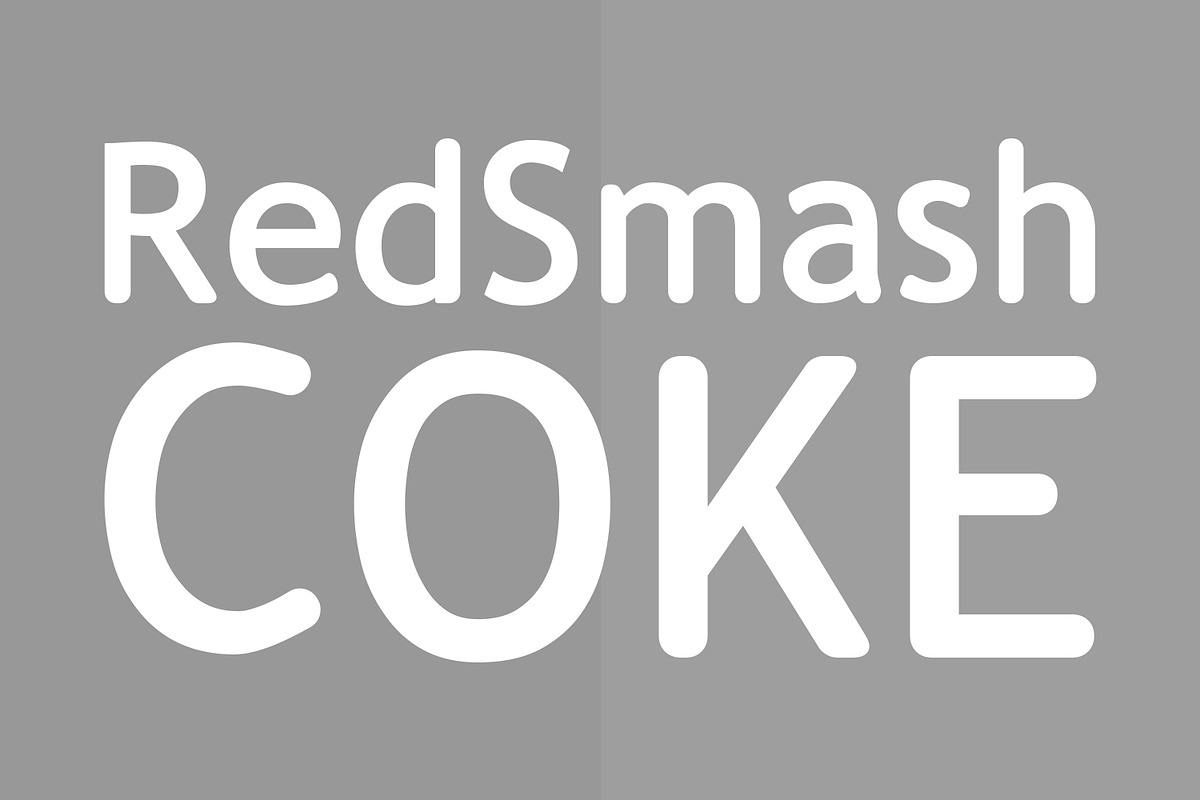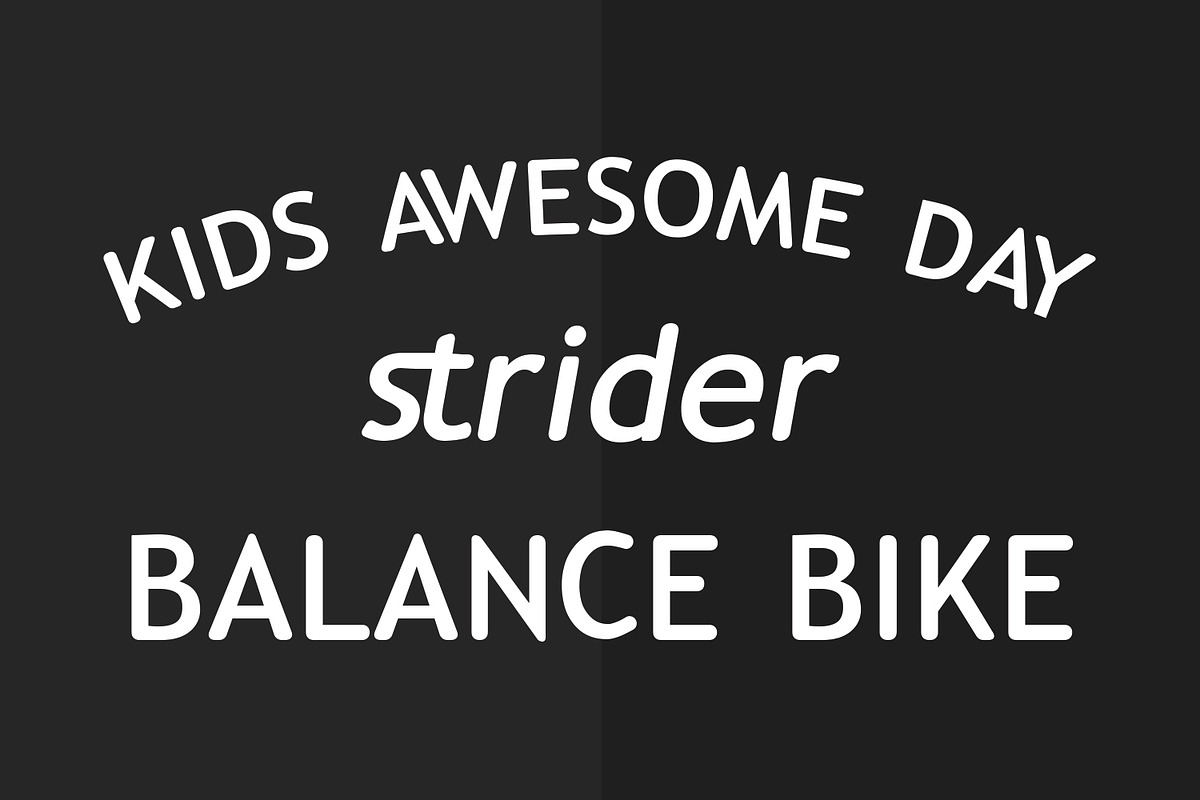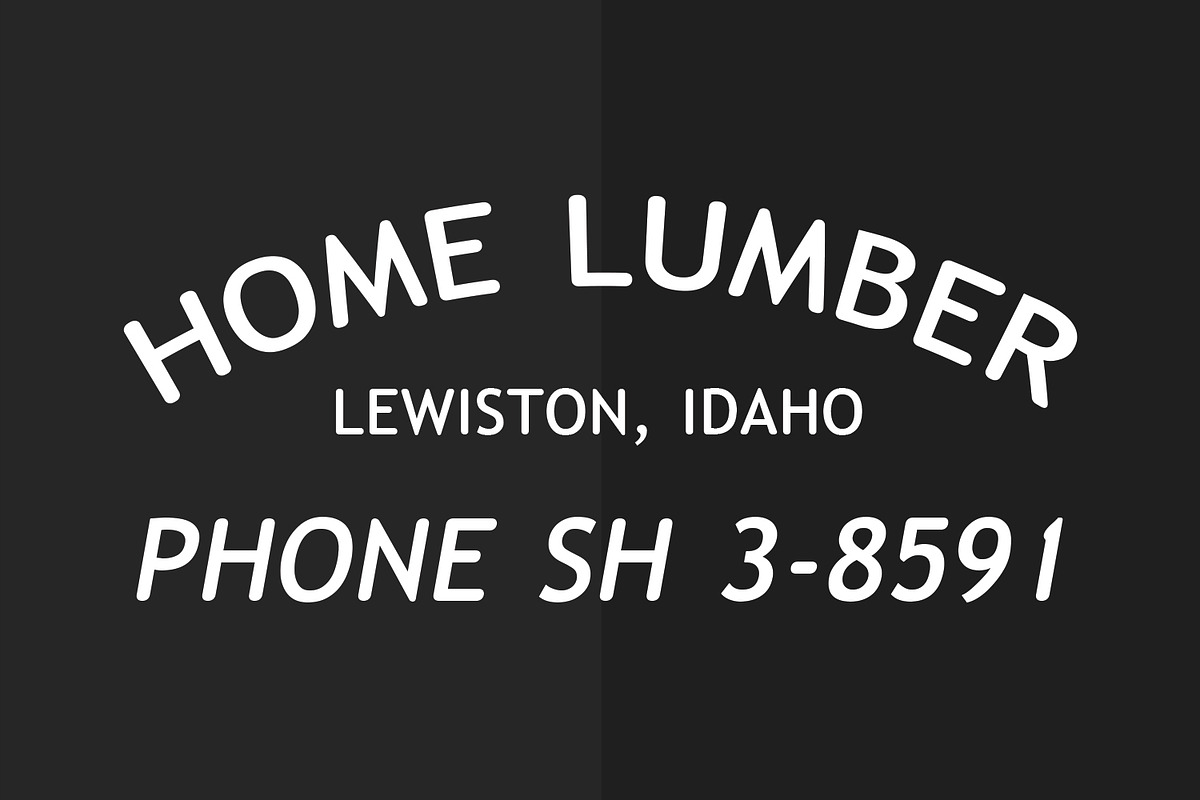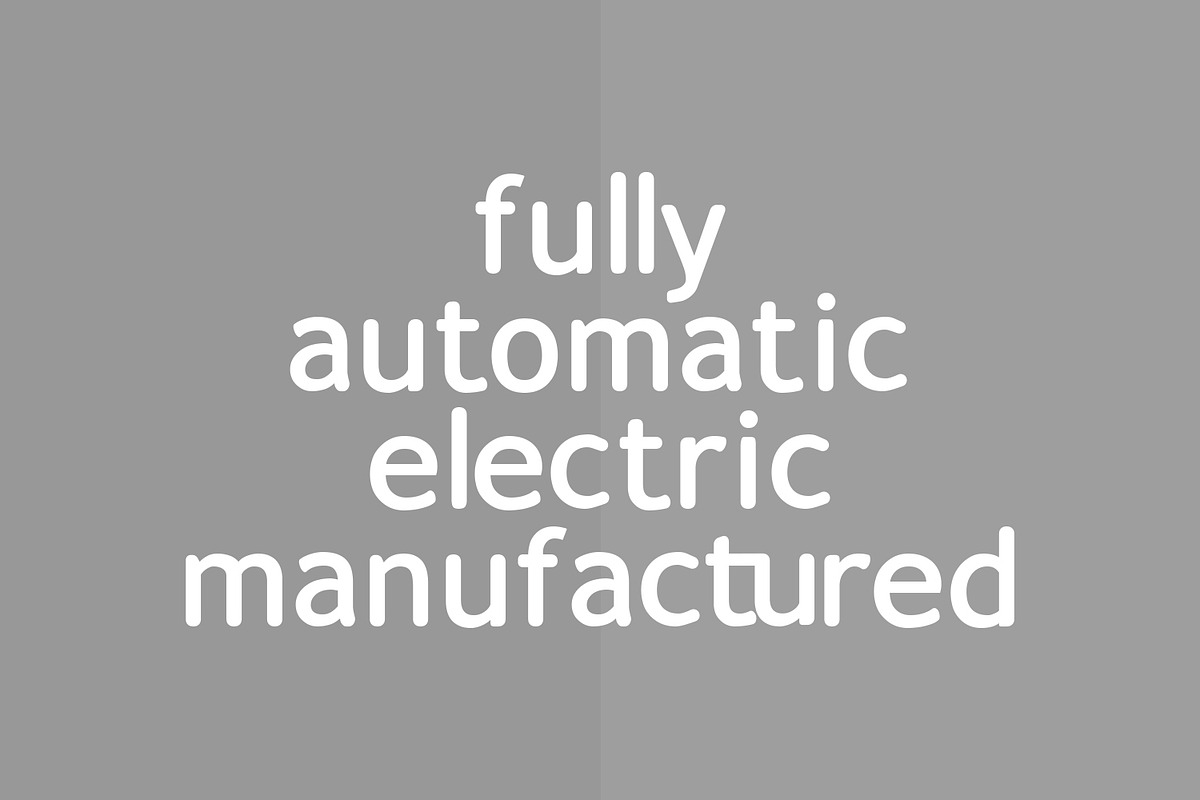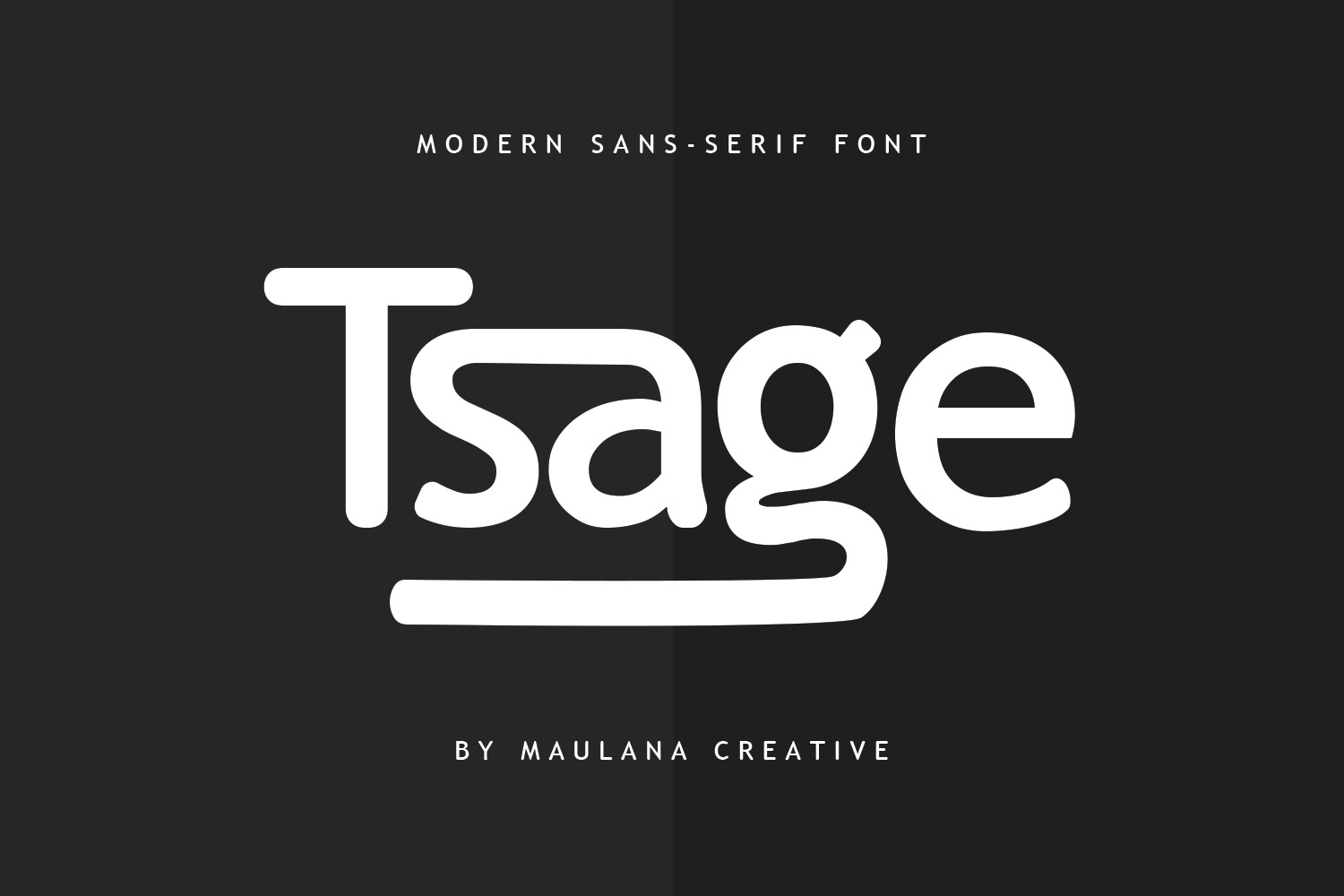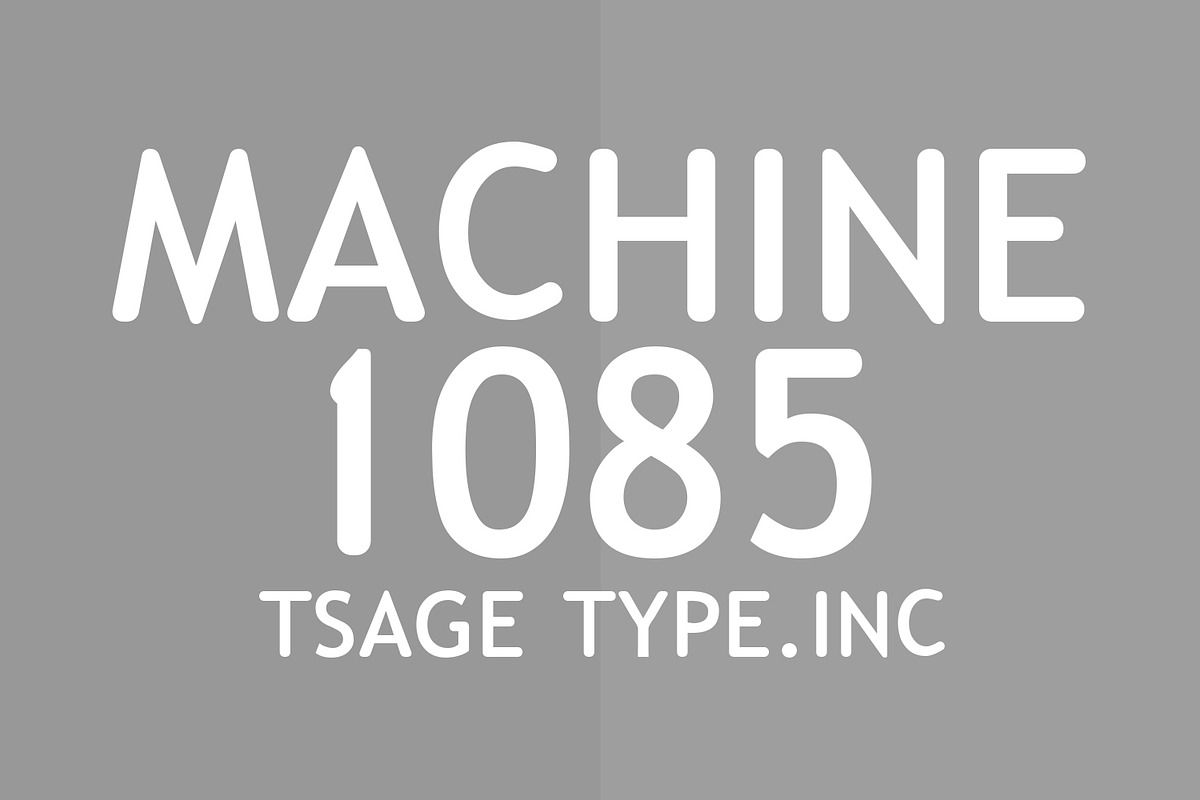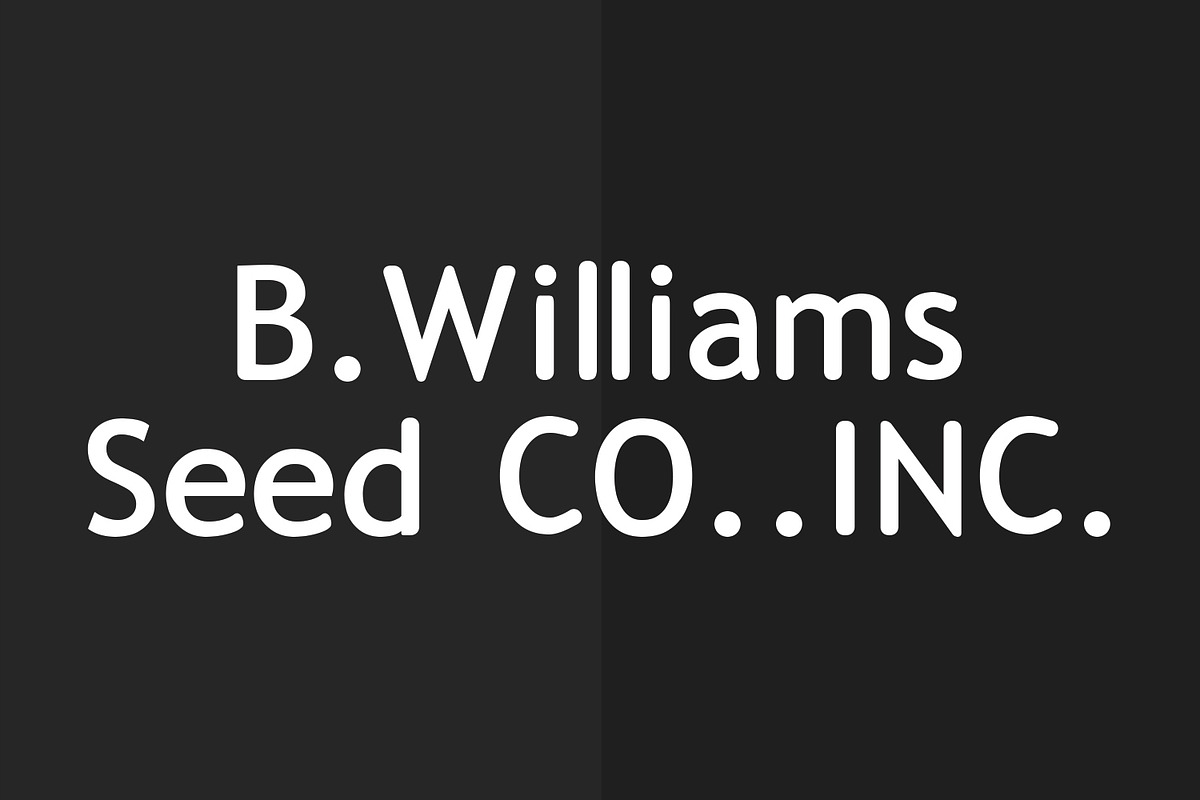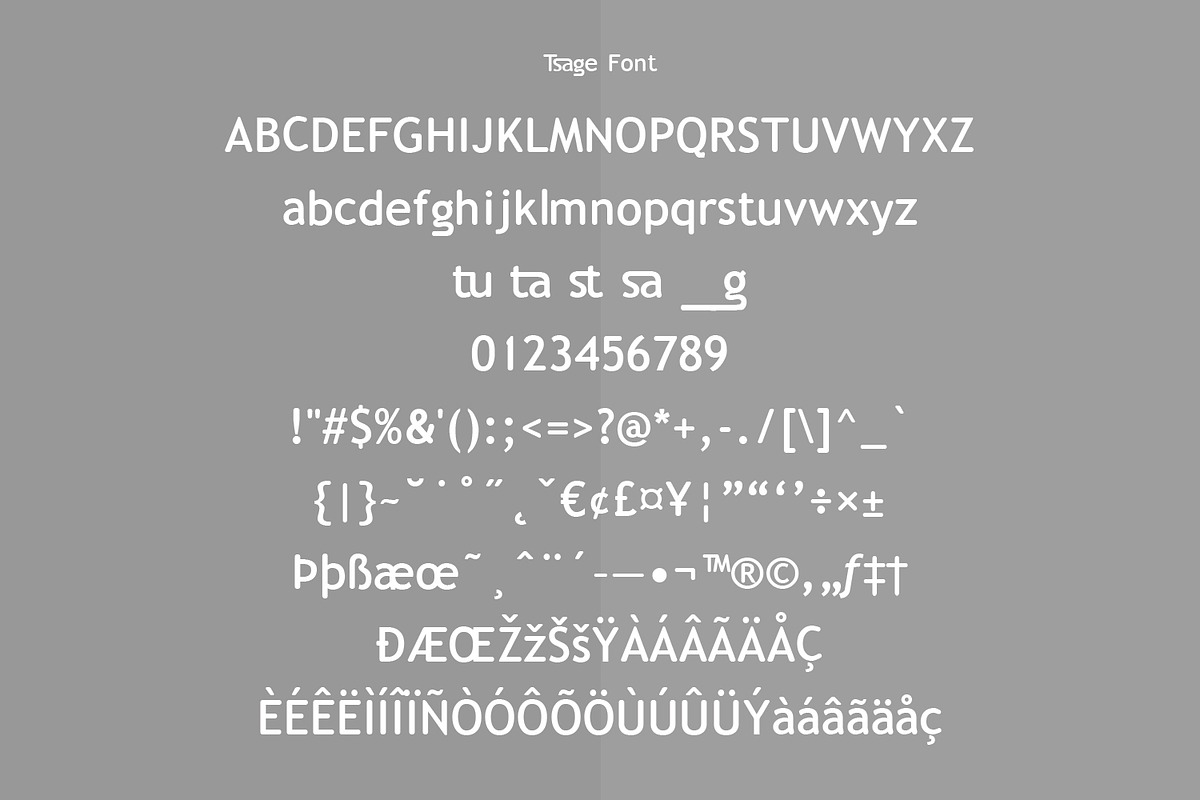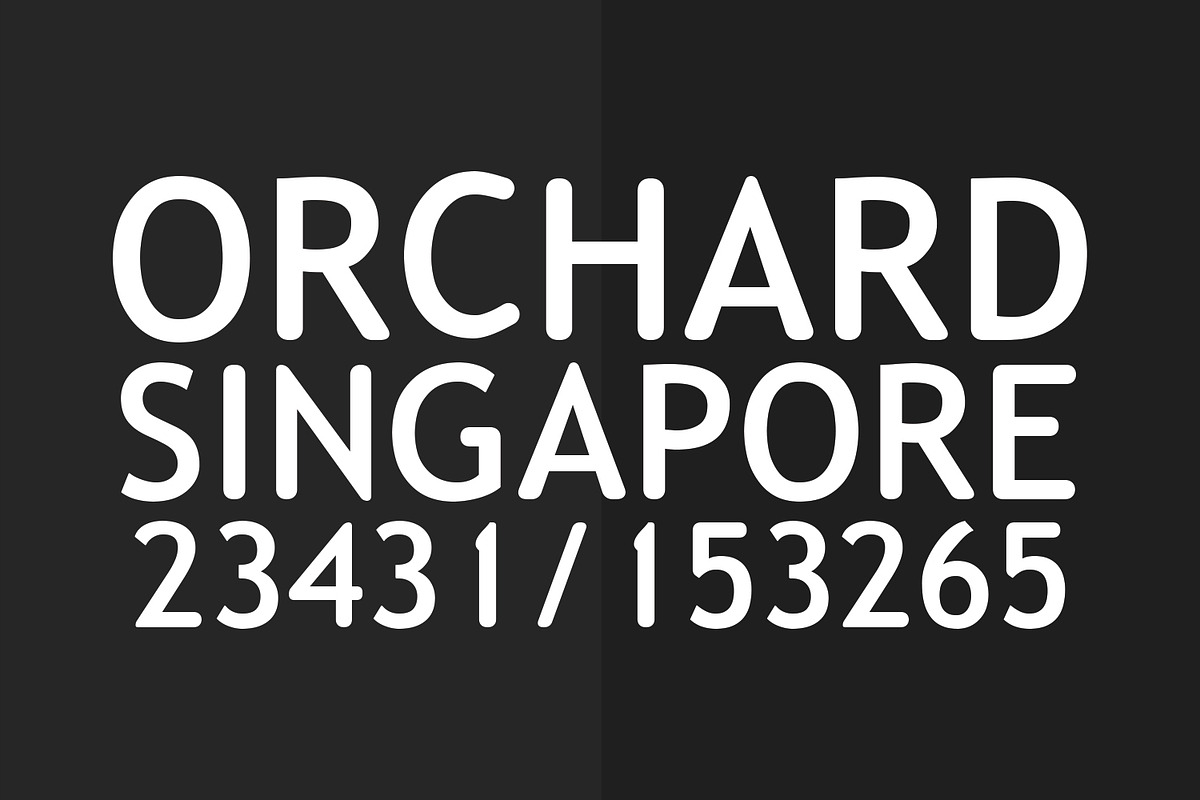
Tsage Display Font
Tsage is a display font. With a modern stroke, fun character with a bit of ligatures and awesome alternates. To give you an extra creative work, Tsage font support multilingual language. This font is good for logo design, Social media, Movie Titles, Books Titles, a short text even a long text letter and good for your secondary text font with sans or serif. Make a stunning work with Tsage font.